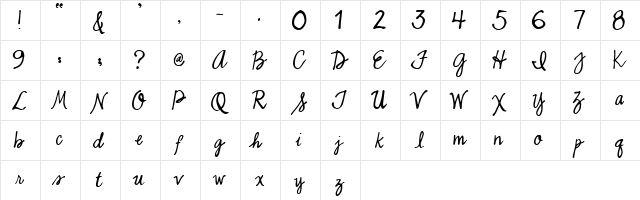
2Peas FancyPants Regular
Design Context for 2Peas FancyPants Typeface
2Peas FancyPants is a composed and adaptable typeface that performs quietly and consistently across a wide range of design contexts.
Pro Tip: Pair 2Peas FancyPants with a font of contrasting weight or personality to build a more expressive typographic hierarchy.